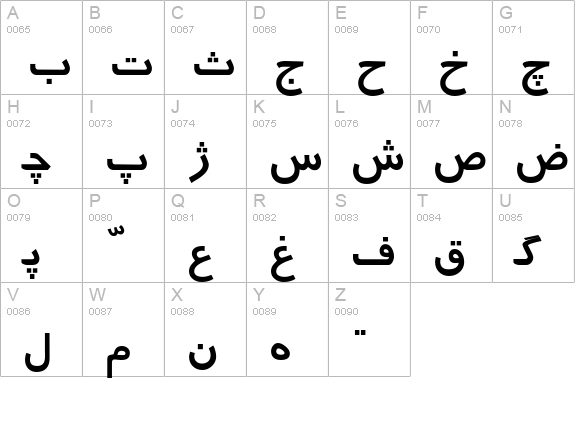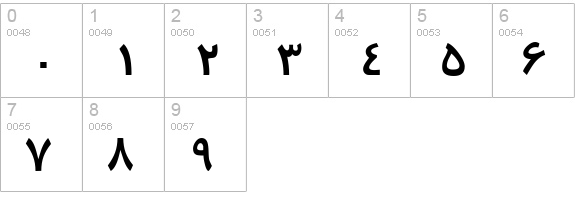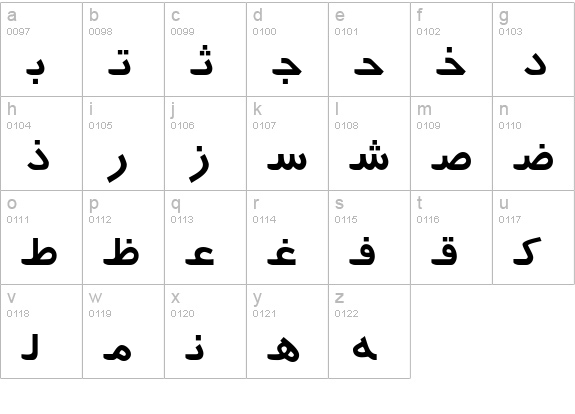
Introducing the mesmerizing Persian font, a true masterpiece that combines elegance, sophistication, and cultural heritage. This enchanting font captures the essence of the Persian language, with its graceful curves and intricate details that transport you to the magical world of ancient Persia. With its seamless blend of tradition and modernity, the Persian font is perfect for a wide range of creative projects. Whether you're designing a stunning logo, crafting a captivating invitation, or creating eye-catching social media graphics, this font will add a touch of Persian charm and allure to your work. But that's not all - what makes this Persian font truly special is that it is absolutely free! Yes, you read that right. It is freely available to download at FontsMarket.com, a trusted source for high-quality fonts. Now you can bring the beauty of Persian script to your designs without any cost. Imagine the possibilities with this remarkable font at your fingertips. Create breathtaking posters that catch the eye and leave a lasting impression. Craft elegant wedding invitations that evoke a sense of romance and mystique. Design captivating websites that transport visitors to a world of Persian art and culture. The options are endless. So why wait? Take advantage of this incredible opportunity to enhance your designs with the mesmerizing Persian font. Download it for free at FontsMarket.com and let your creativity soar to new heights. Embrace the beauty of the Persian script and captivate your audience with this remarkable font.